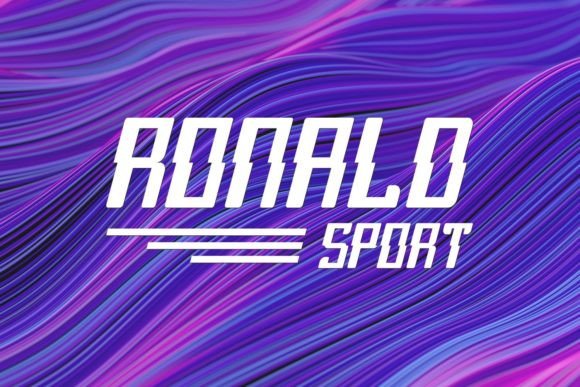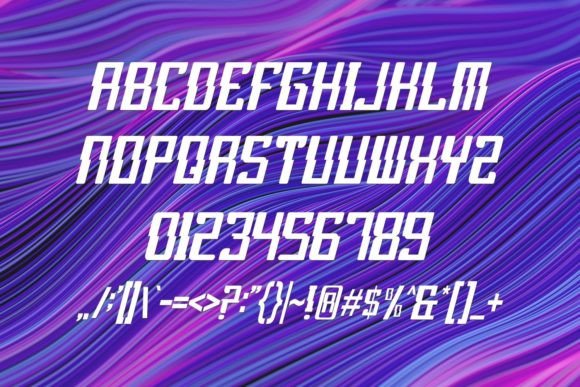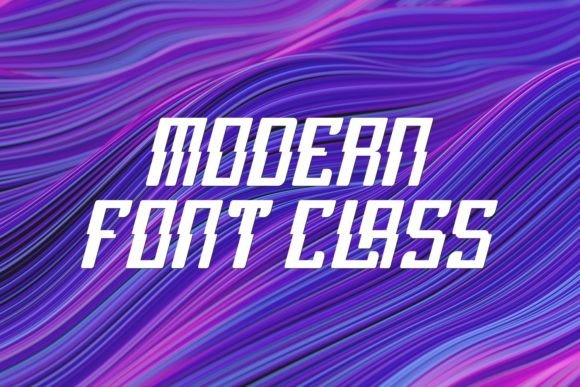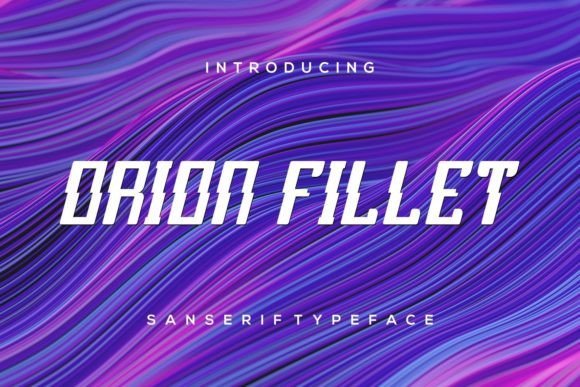
Introduction to Orion Fillet Font
Orion Fillet is a charming display font created in a modern italic style.
It looks great on covers, banners, flyers, advertisements, or anything that needs bold typography .
Key Features of Orion Fillet Font
Why Choose Orion Fillet Font?